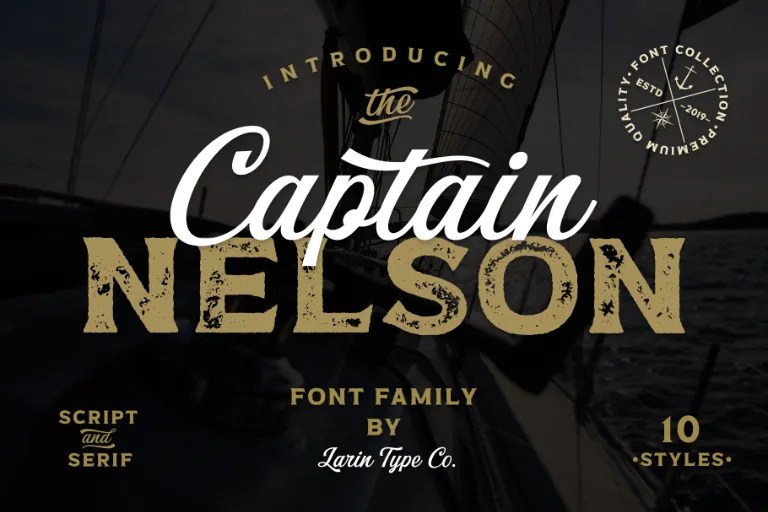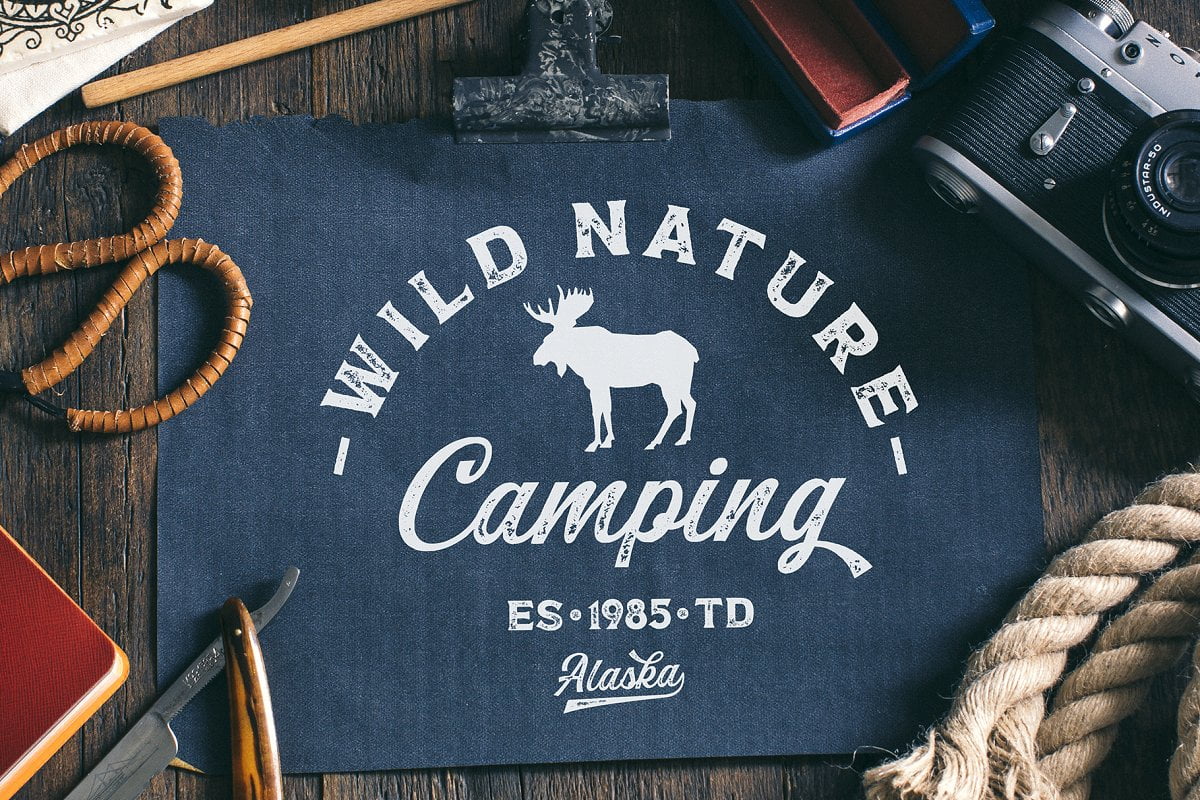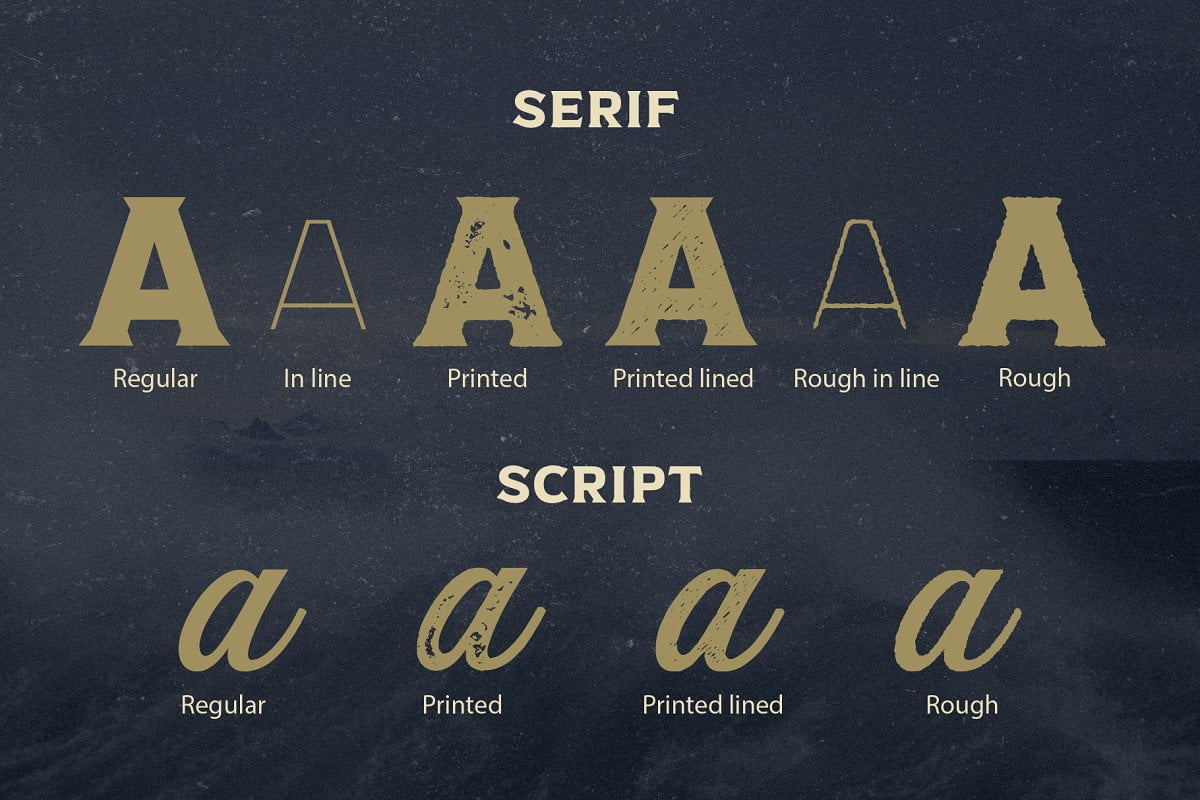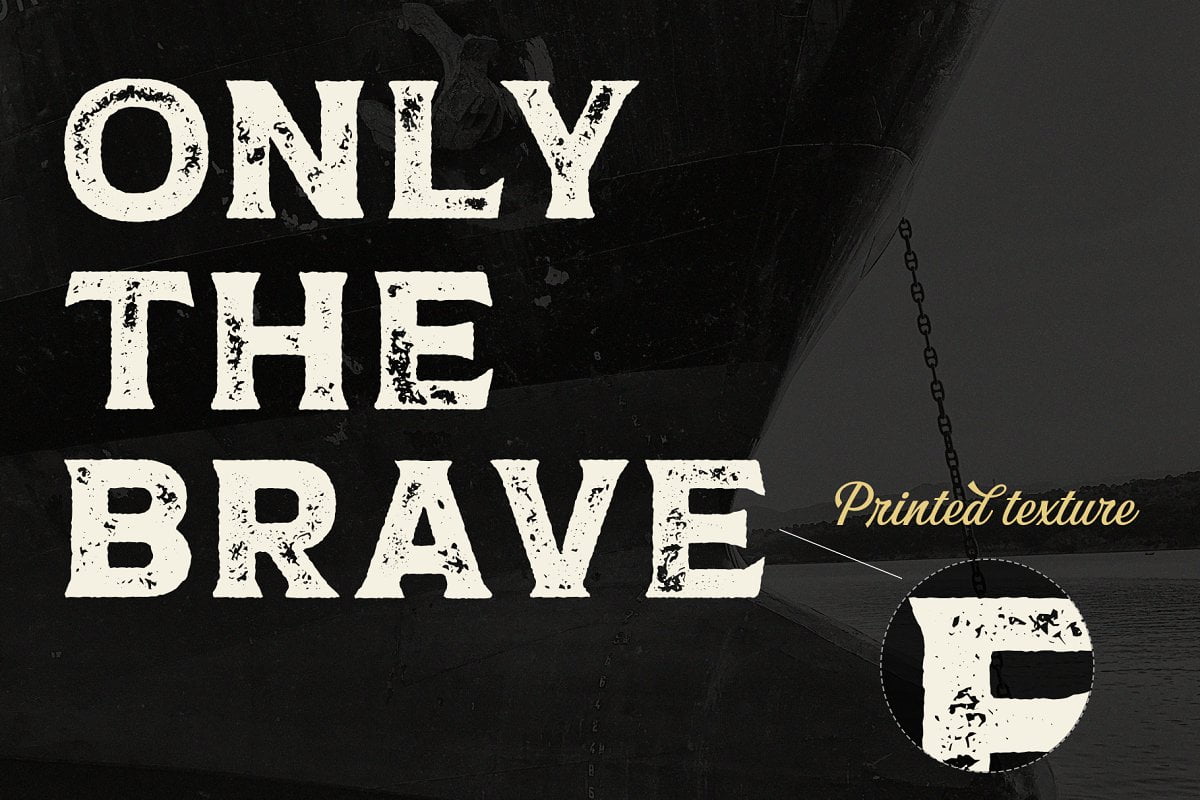
Captain Nelson
Captain Nelson Font is perfect for nautical restaurant branding, maritime museum materials, naval heritage campaigns, sailing club promotions, ocean adventure tourism, ship captain memoirs, seaside hotel signage, and distinguished maritime projects that require commanding, seafaring typography.
This font is exciting because it captures the authoritative leadership and maritime heritage of legendary naval commanders, with letterforms that embody the same decisive strength and seafaring wisdom found in historic naval battles and ocean exploration. Its commanding character reflects the courage and strategic excellence that defines true maritime leadership, making it ideal for brands seeking to convey authority, adventure, and authentic nautical heritage in their communications.
The Captain Nelson Font family includes regular and bold weights with complete character sets featuring uppercase and lowercase letters, naval numerals, maritime punctuation, and special symbols. It also includes commanding alternates and decorative elements that enhance the naval aesthetic and provide additional authority for seafaring applications.